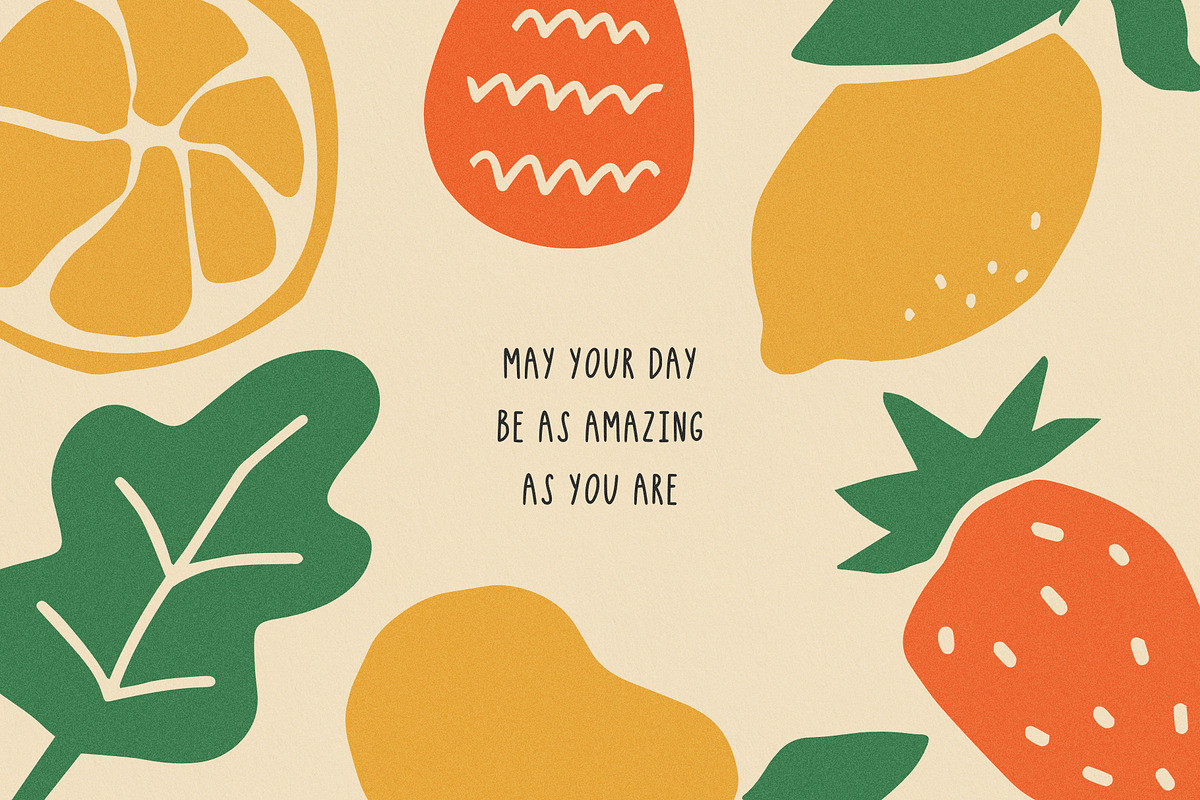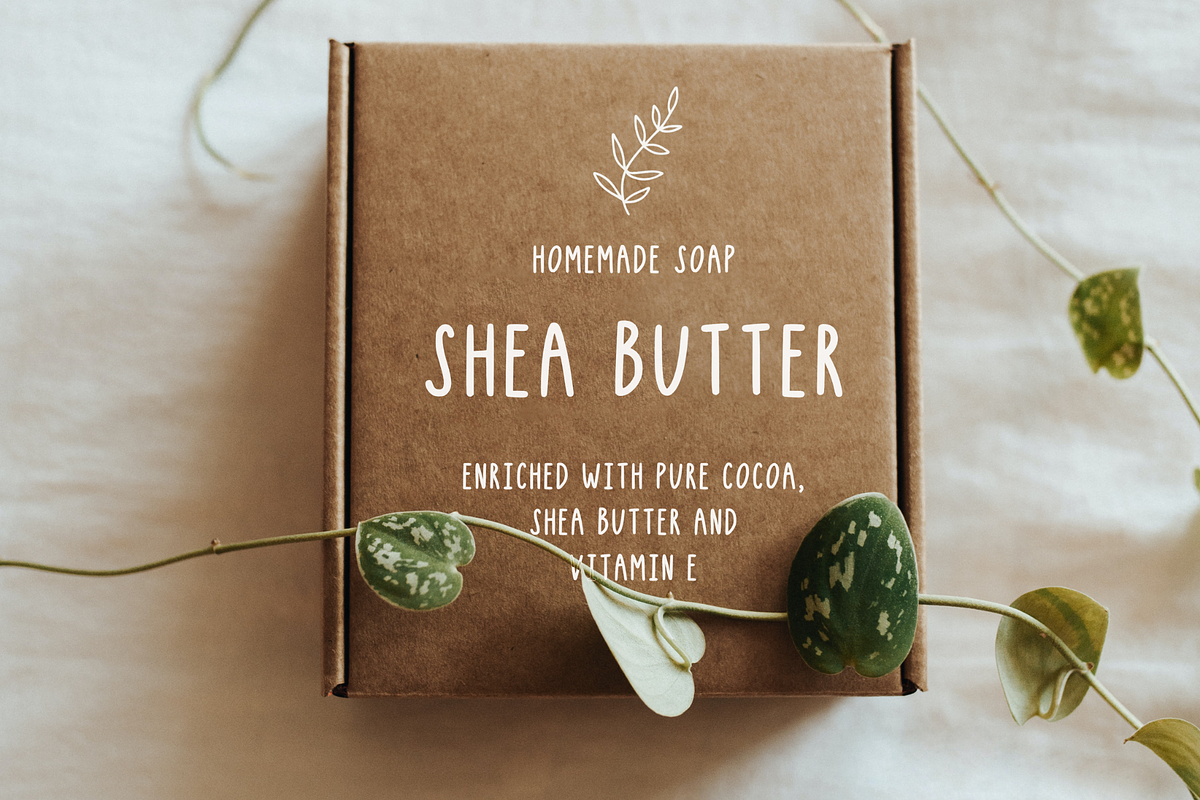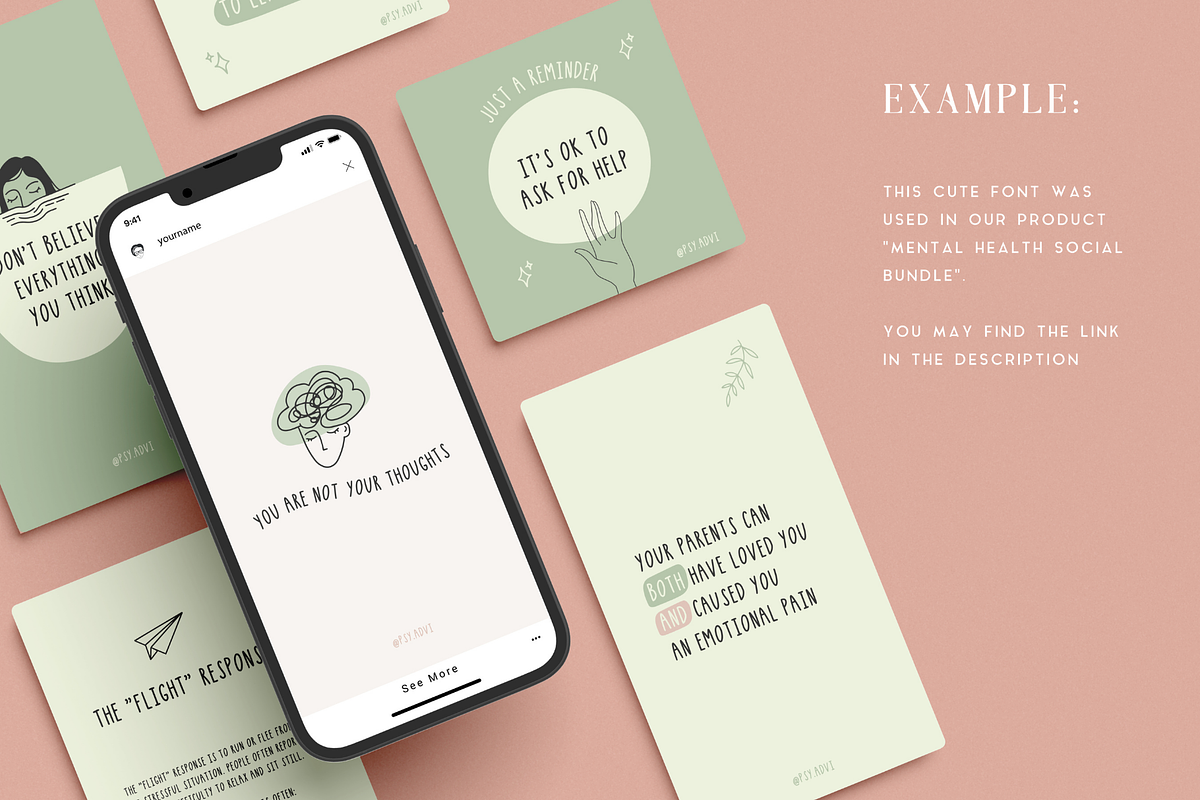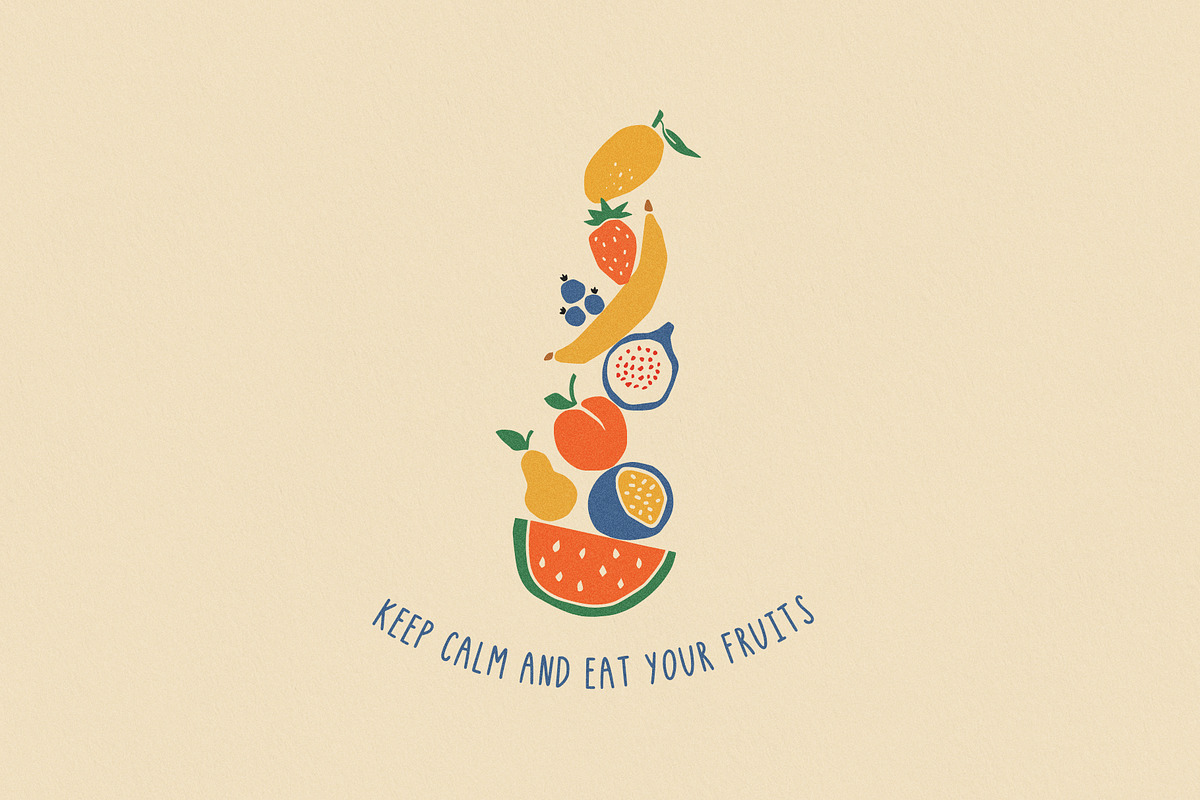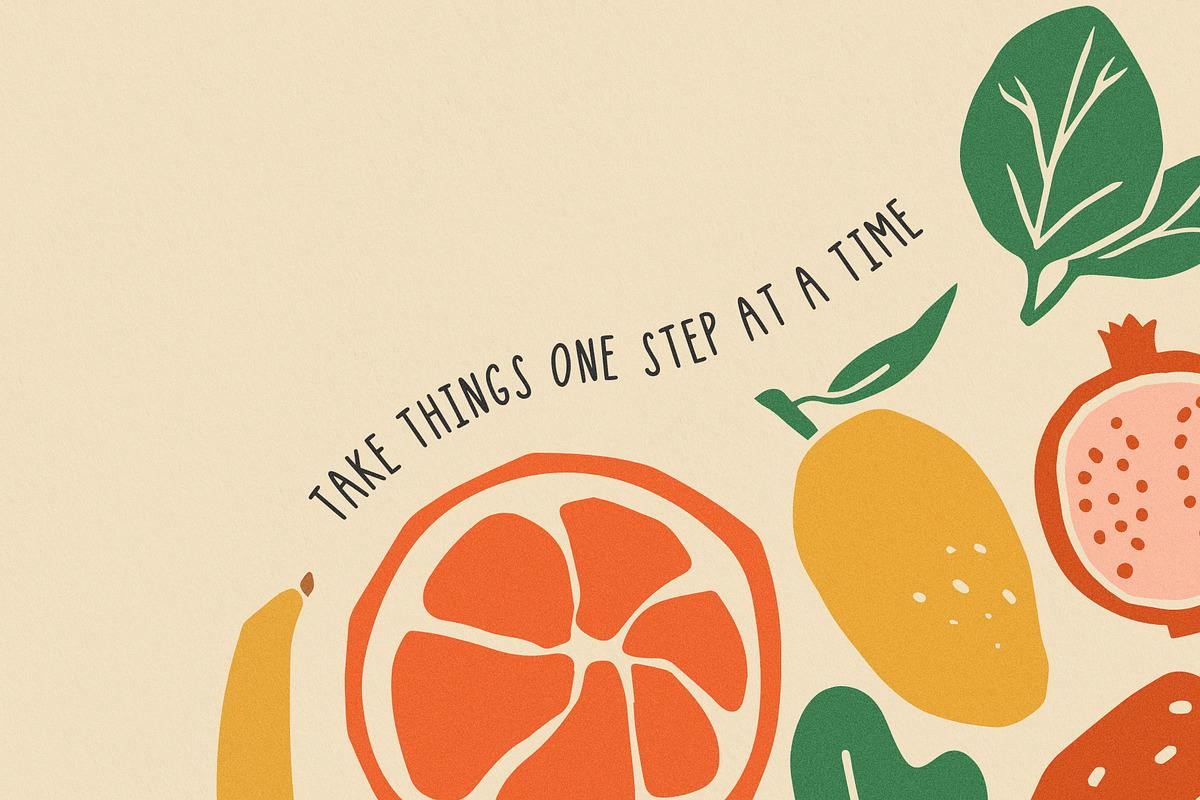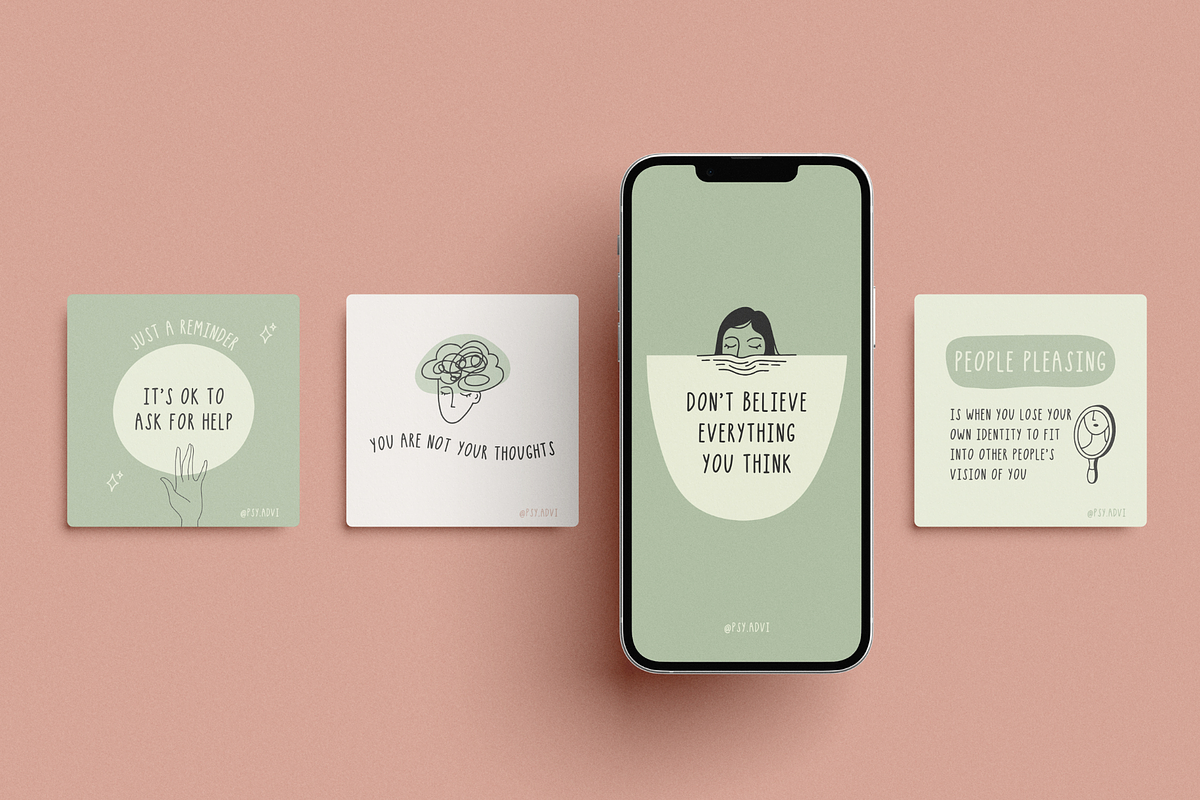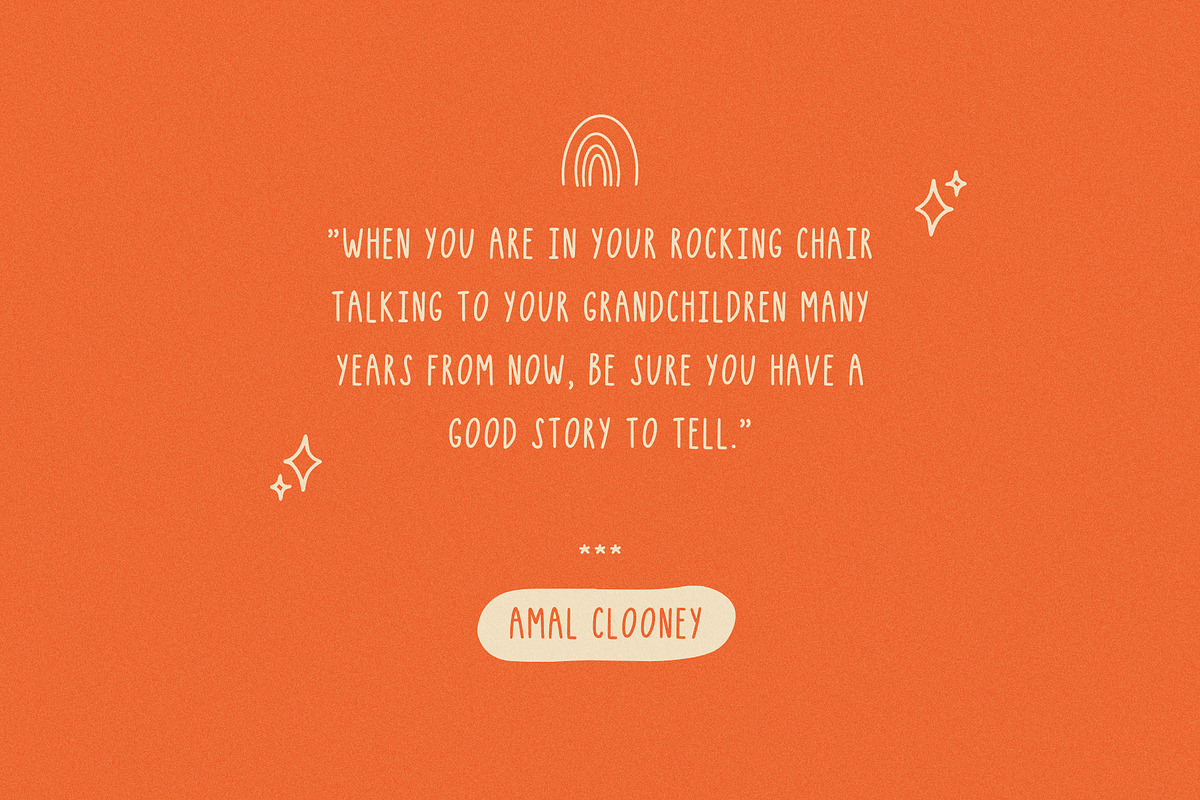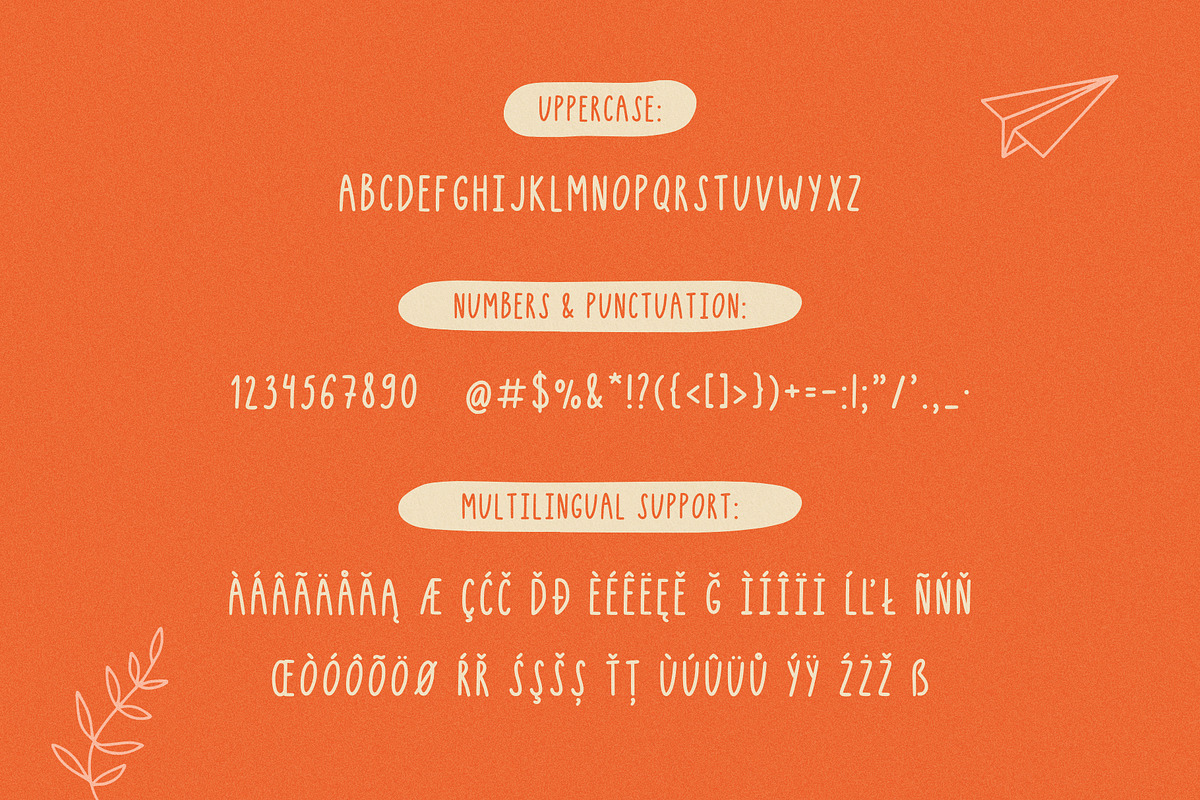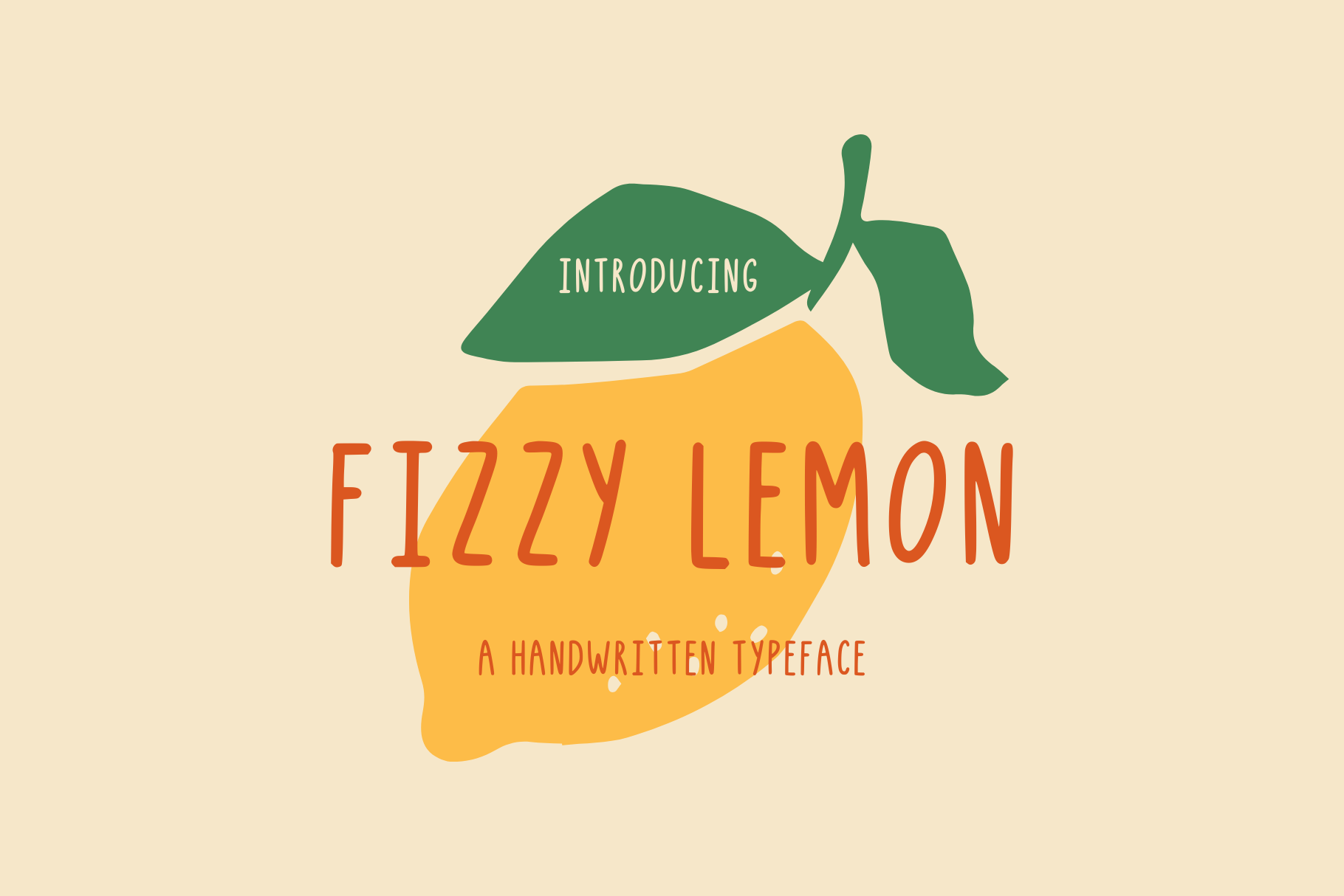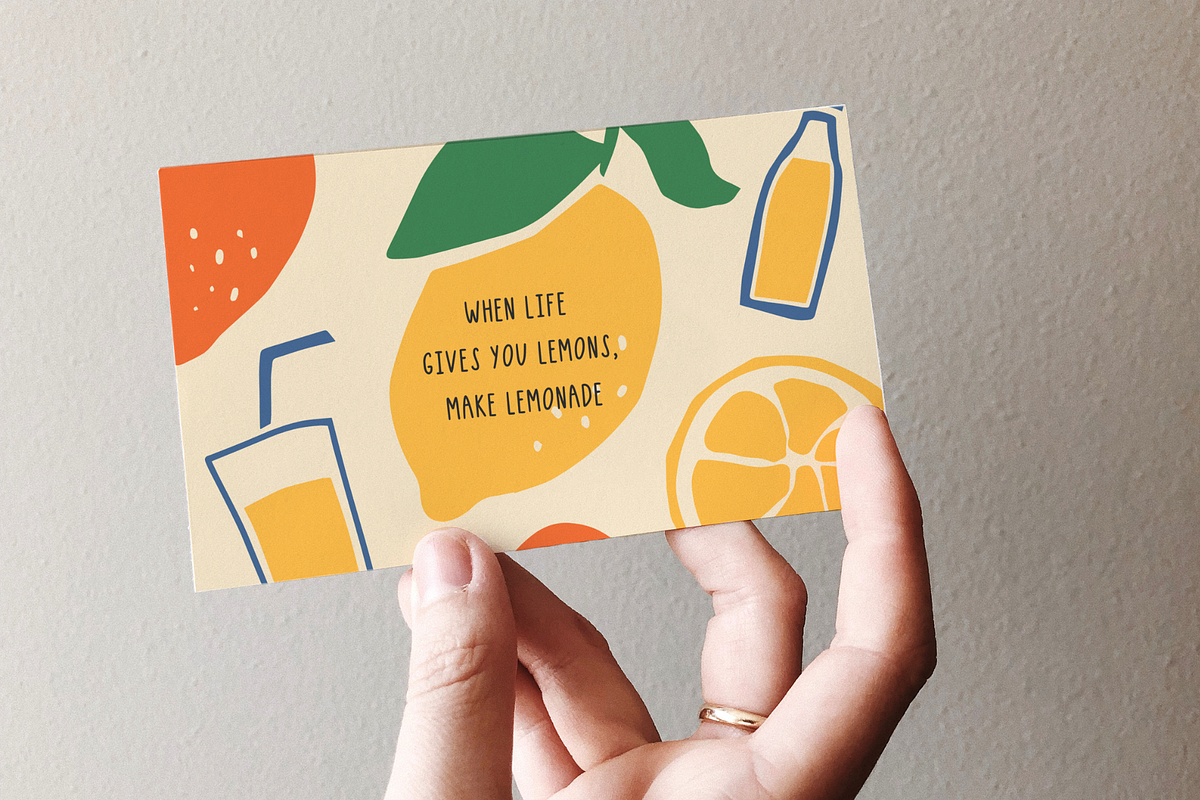
Fizzy Lemon Handwritten Font
You can use this handwritten font Fizzy Lemon for making trendy typography, wedding invitations, beautiful stationary art, eye-catching social media posts, and cute greeting cards, illustrations, posters and prints. This hand lettered script makes also a perfect fit for your personal branding.
GOOD NEWS! Fizzy Lemon Script supports variety of languages, you can check it on the preview!